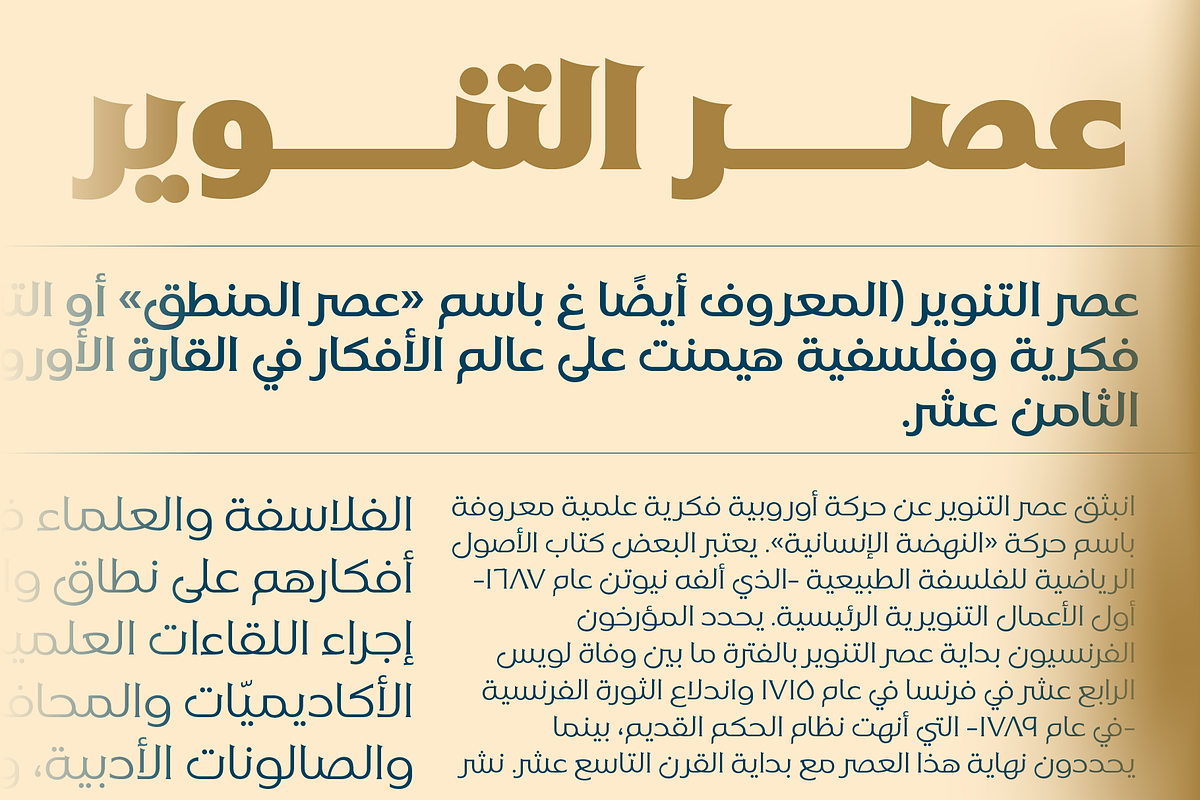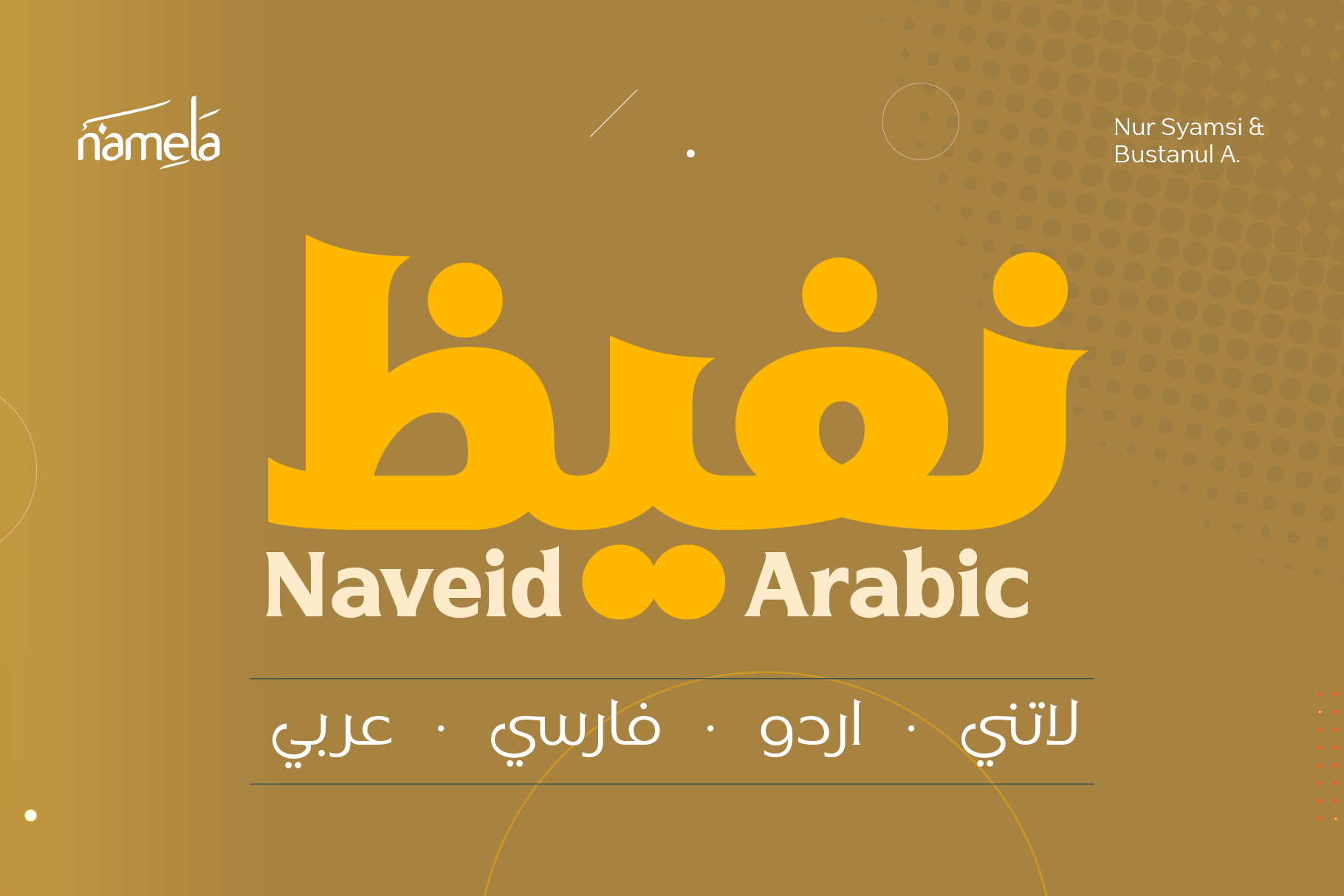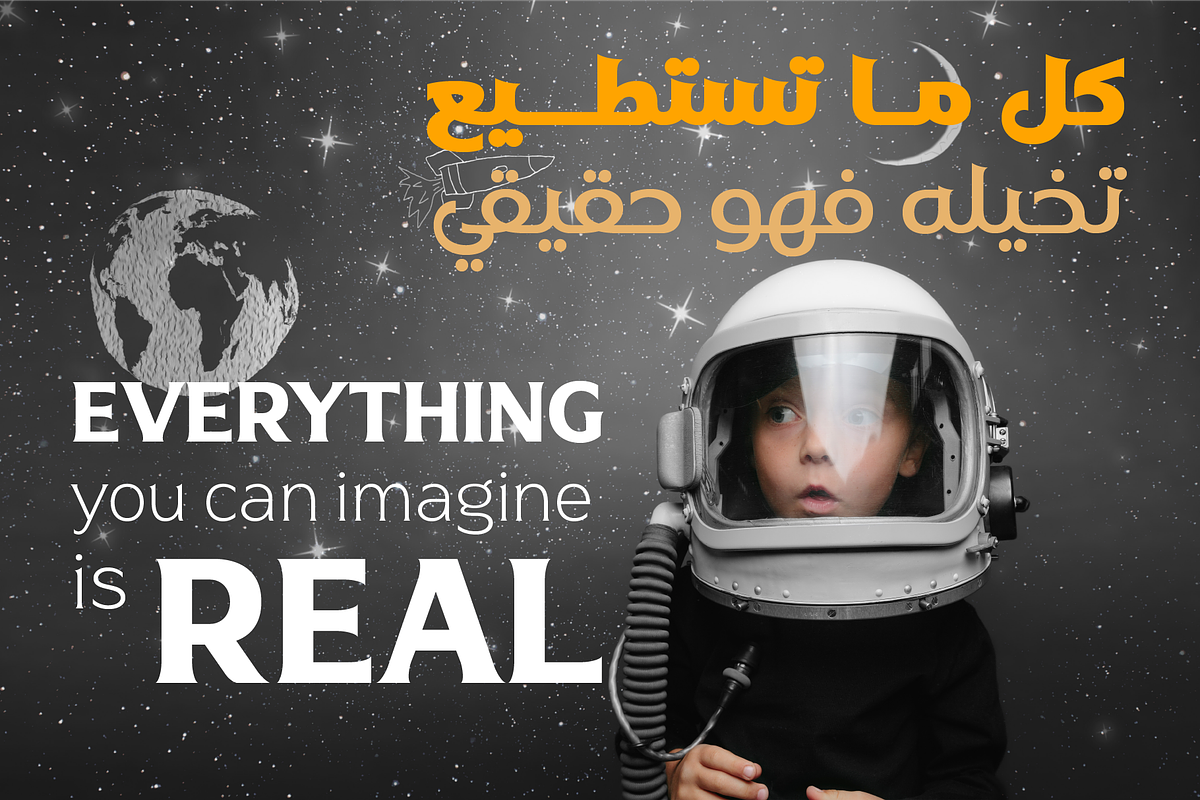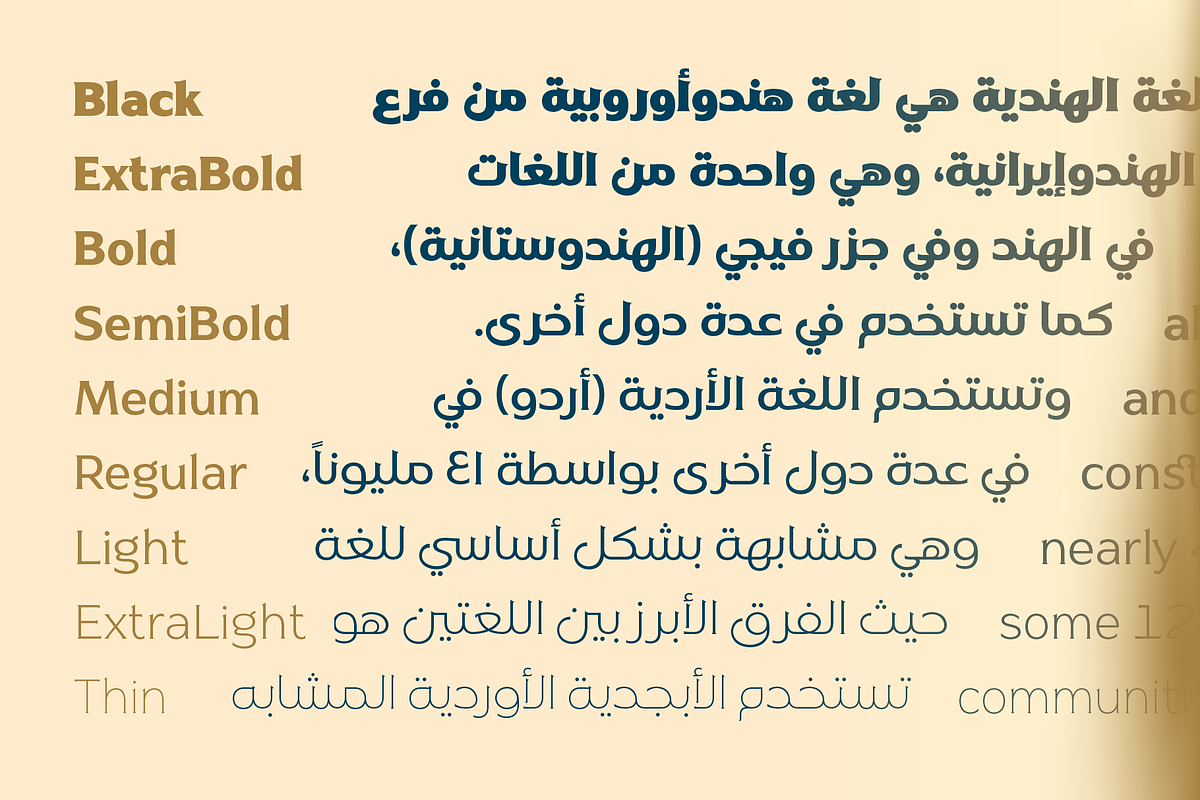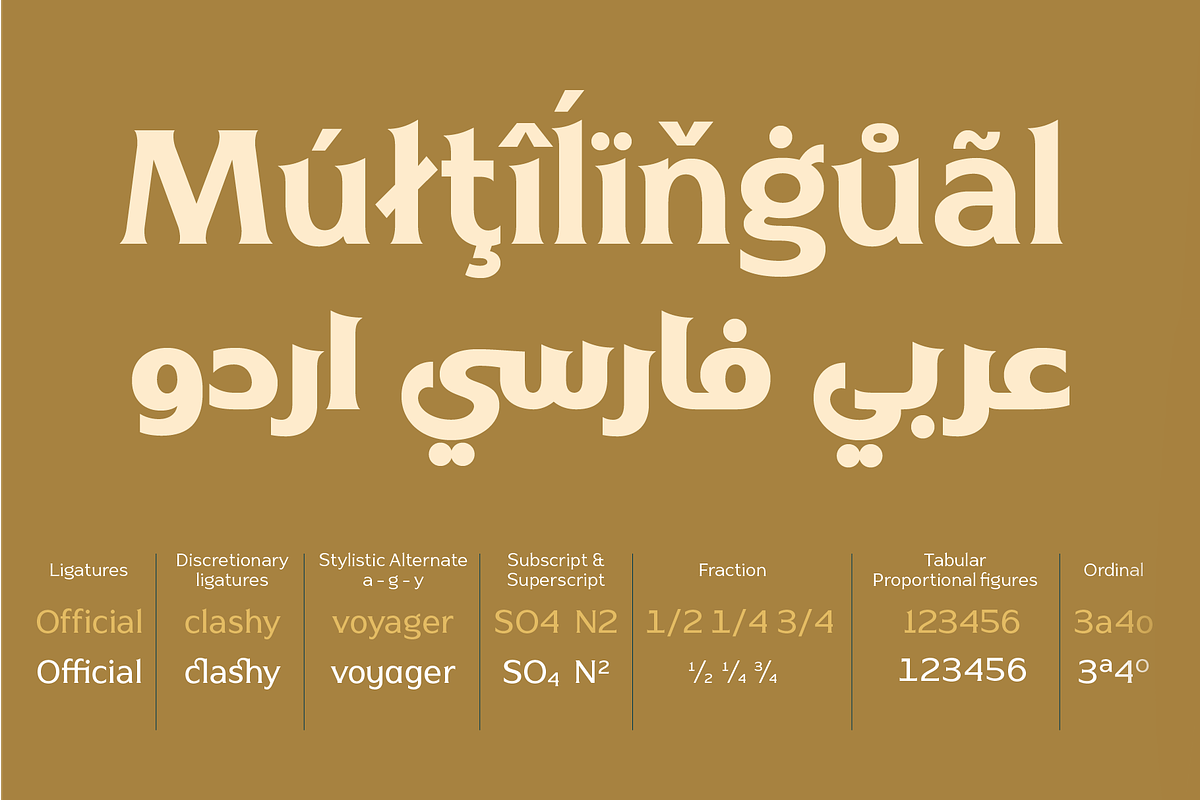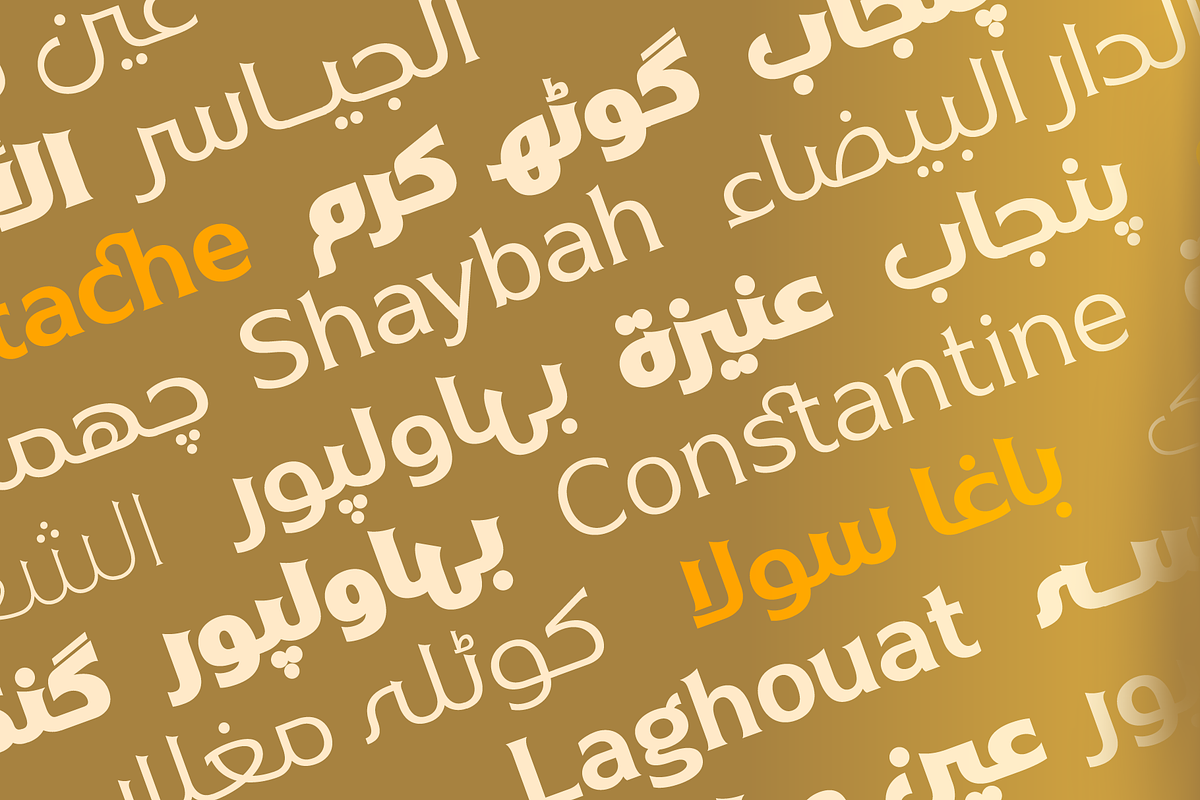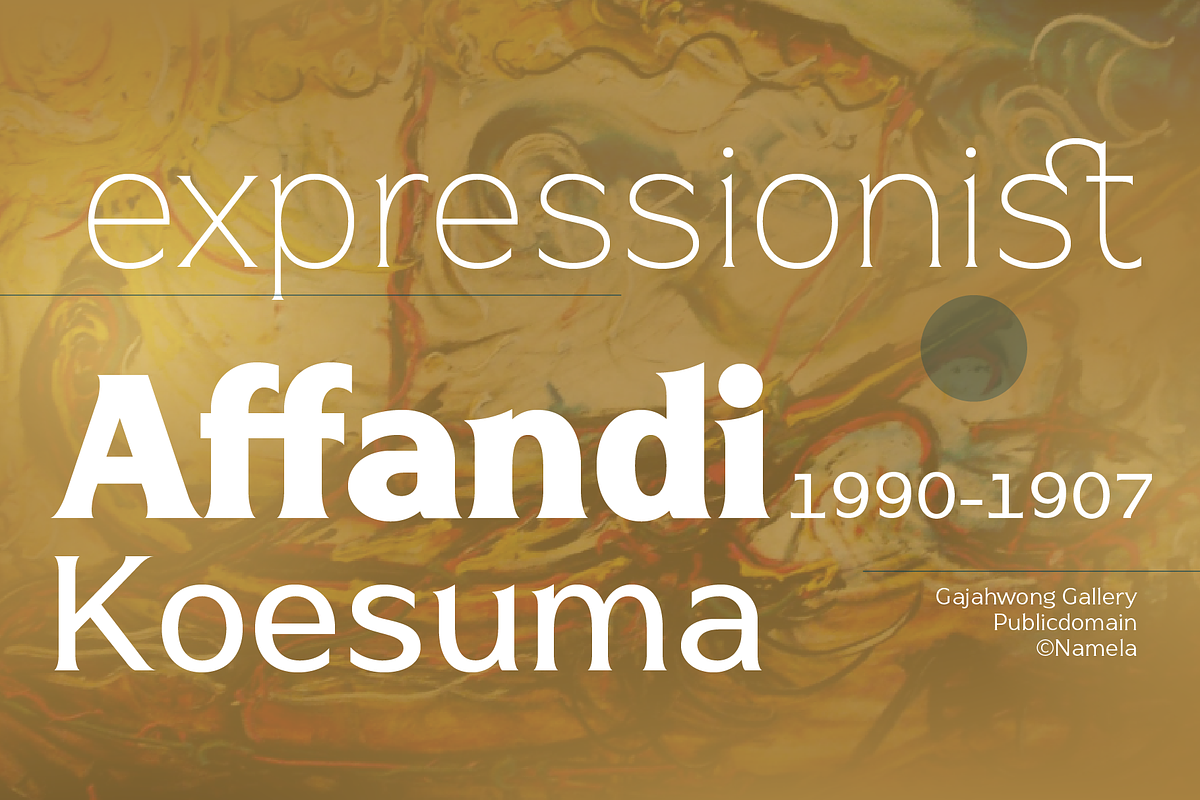
Naveid Latin & Arabic Elegant Font
Naveid Latin & Arabic Elegant Font designed with combining the cuppped serif on top and the tinny Subtle Flaring on the terminal. With the addition of Arabic glyphs, for Arabic, Urdu, and Farsi. Basic form for arabic font is refers to the arabic kufic style.
Naveid Latin & Arabic Elegant Font designed with low contrast, consists of 9 styles from thin to black, it makes this font not only great for Headlines, but also great for paragraph, text and printing.